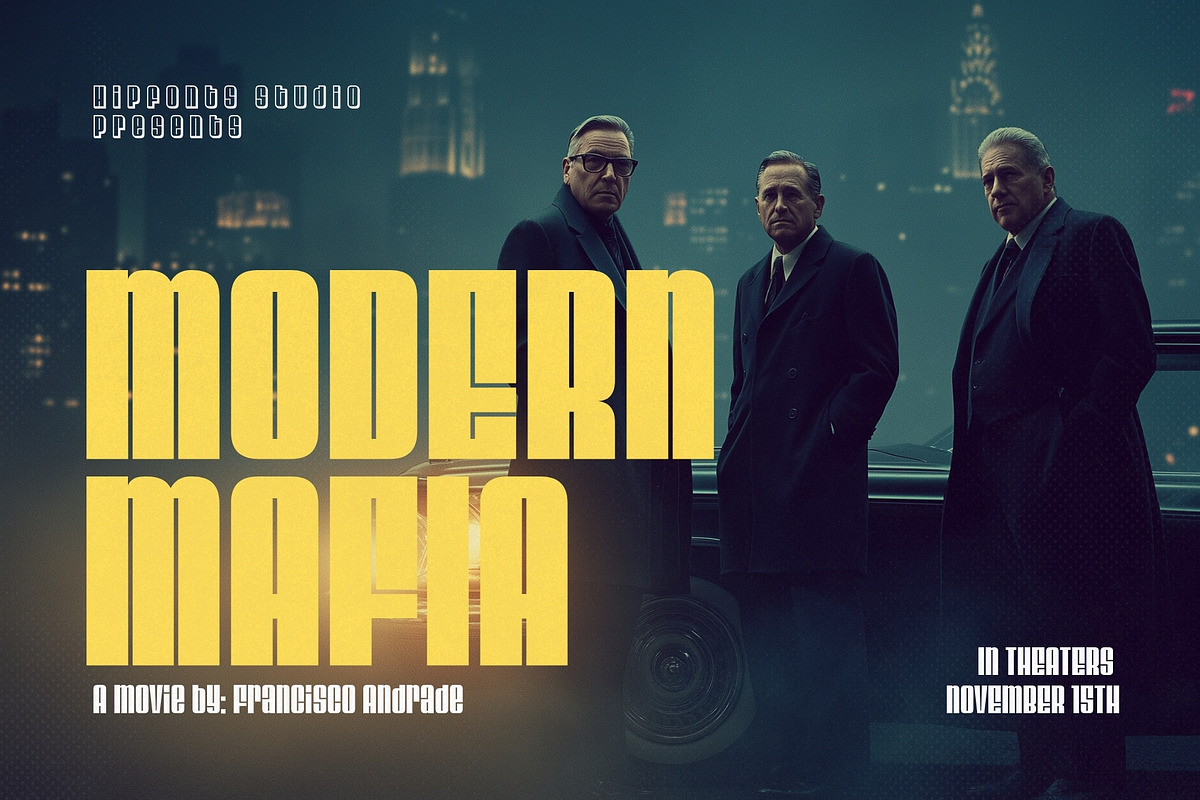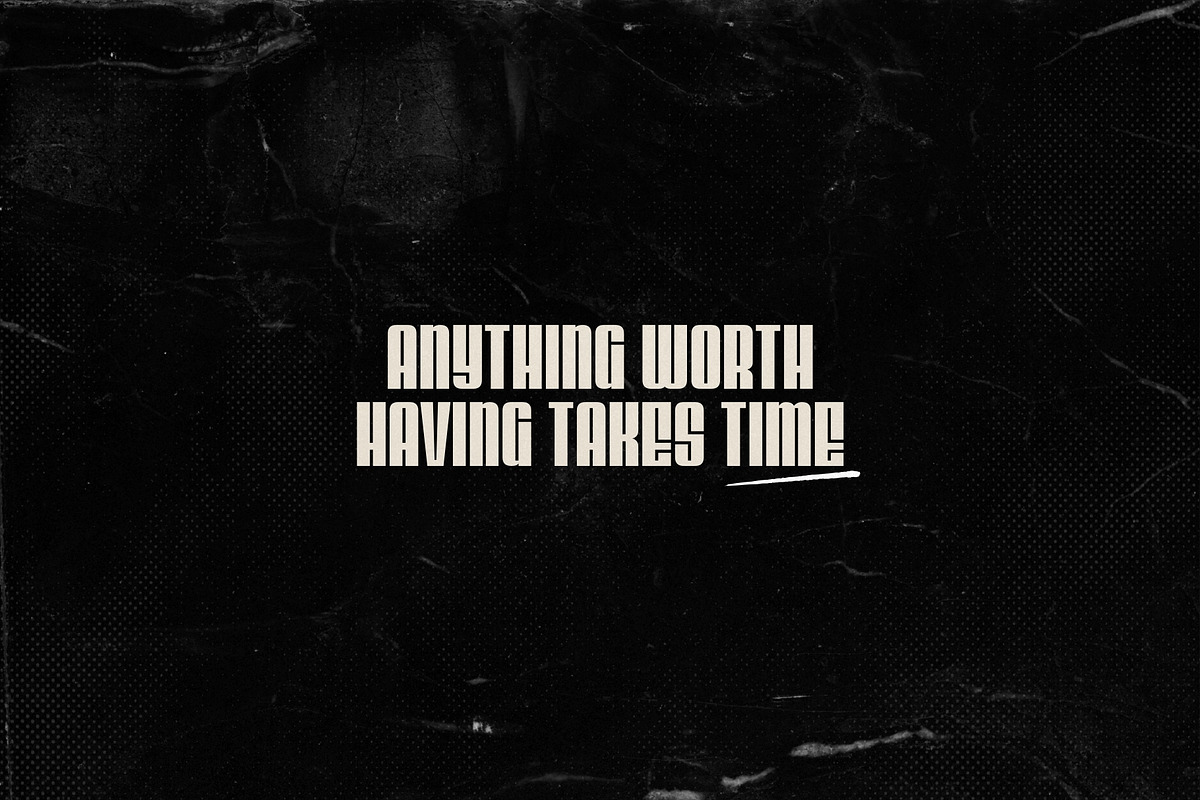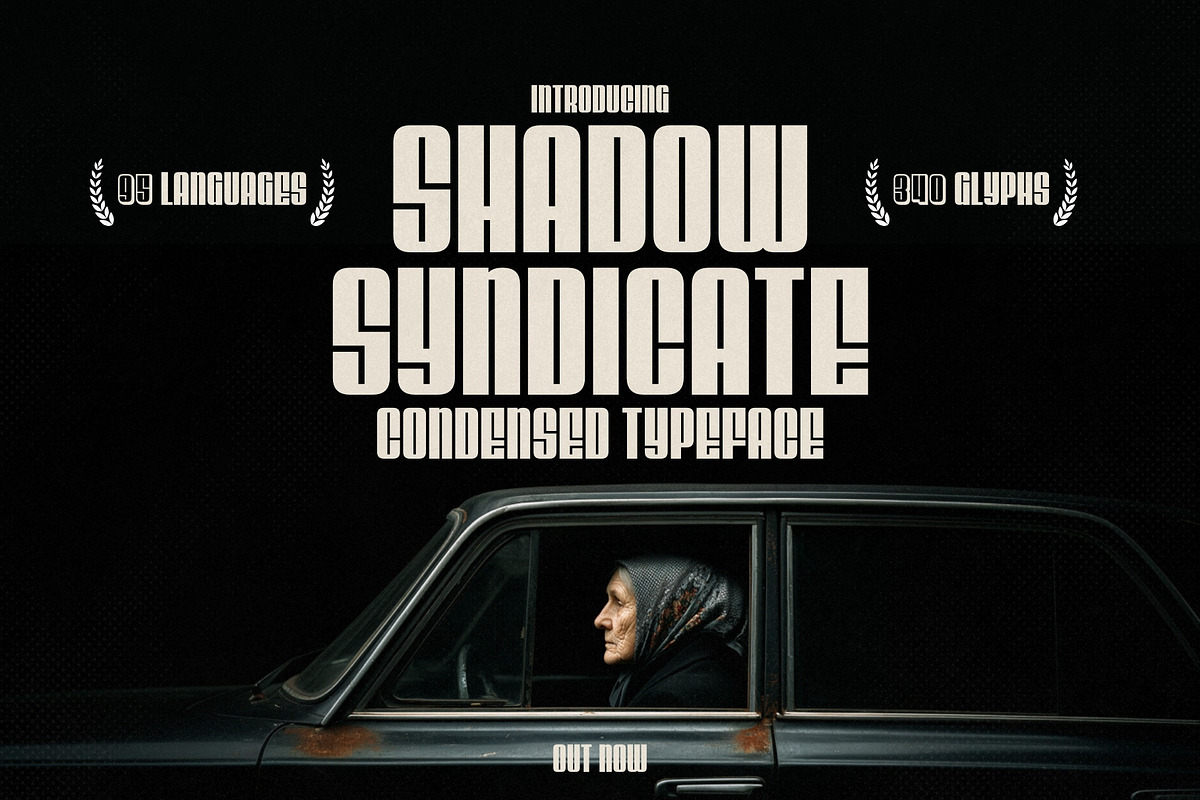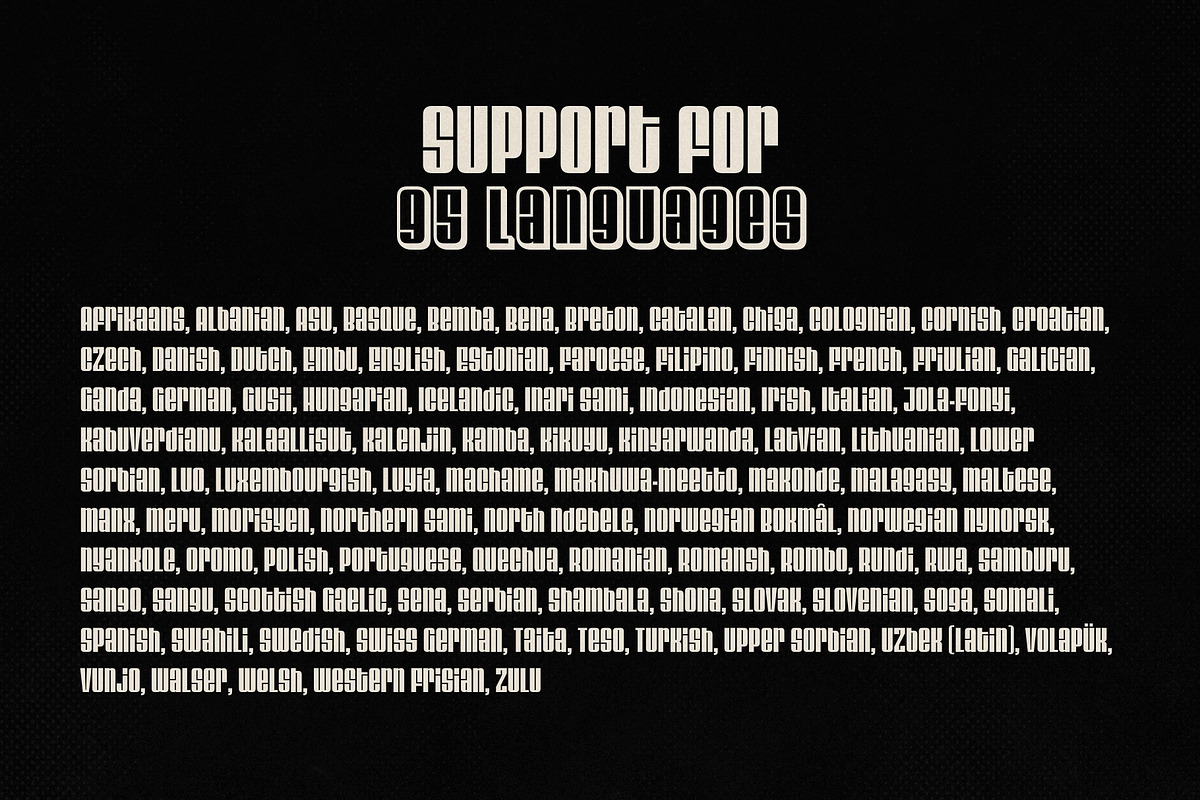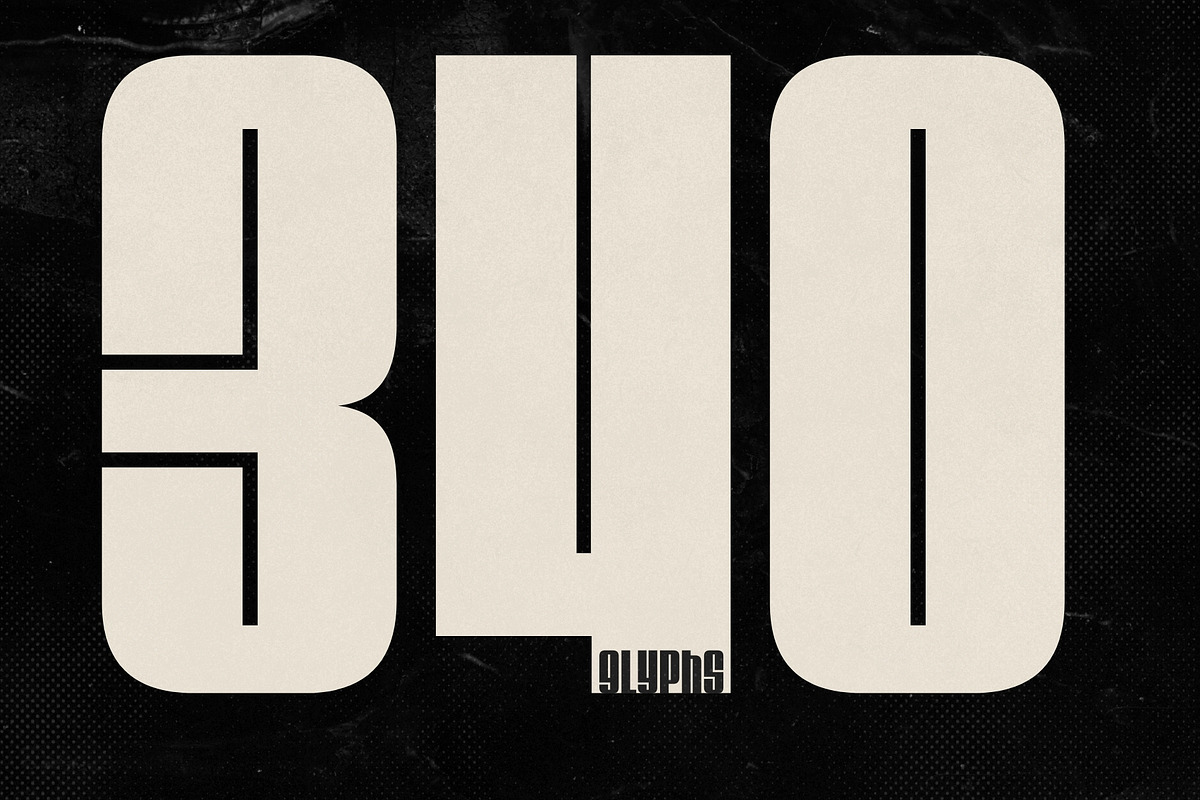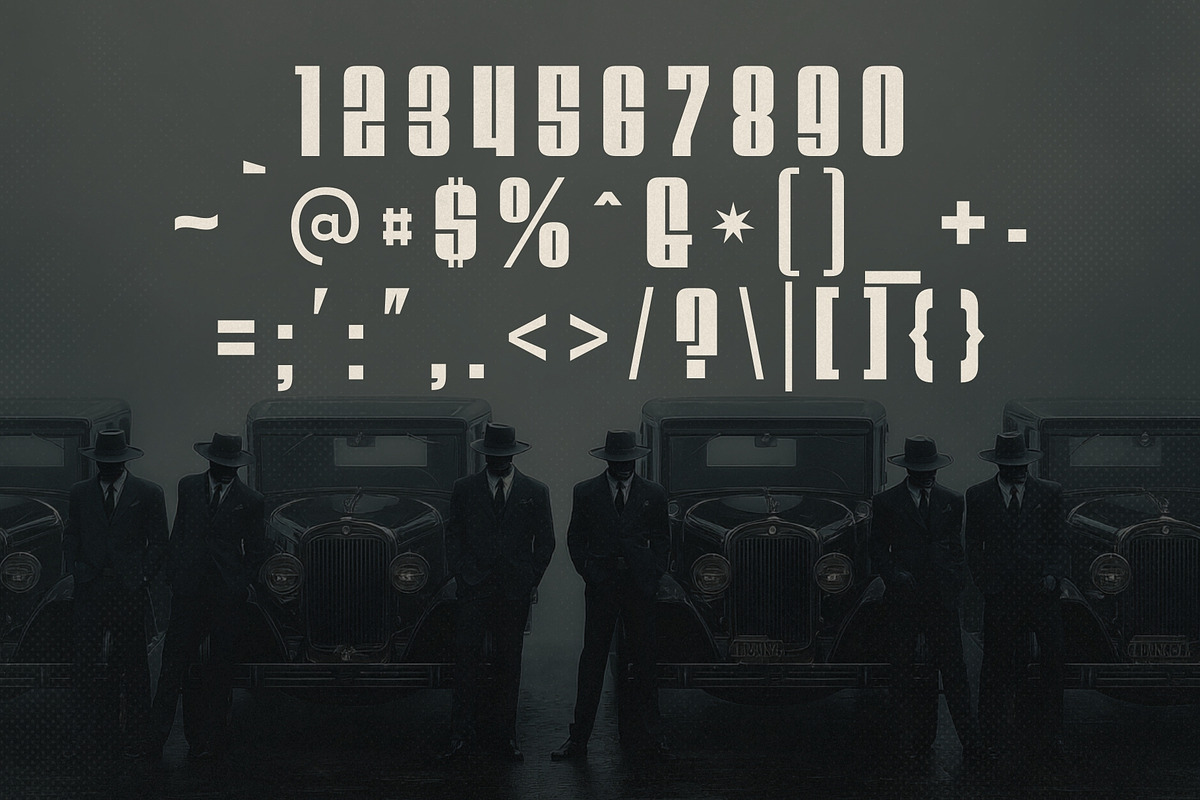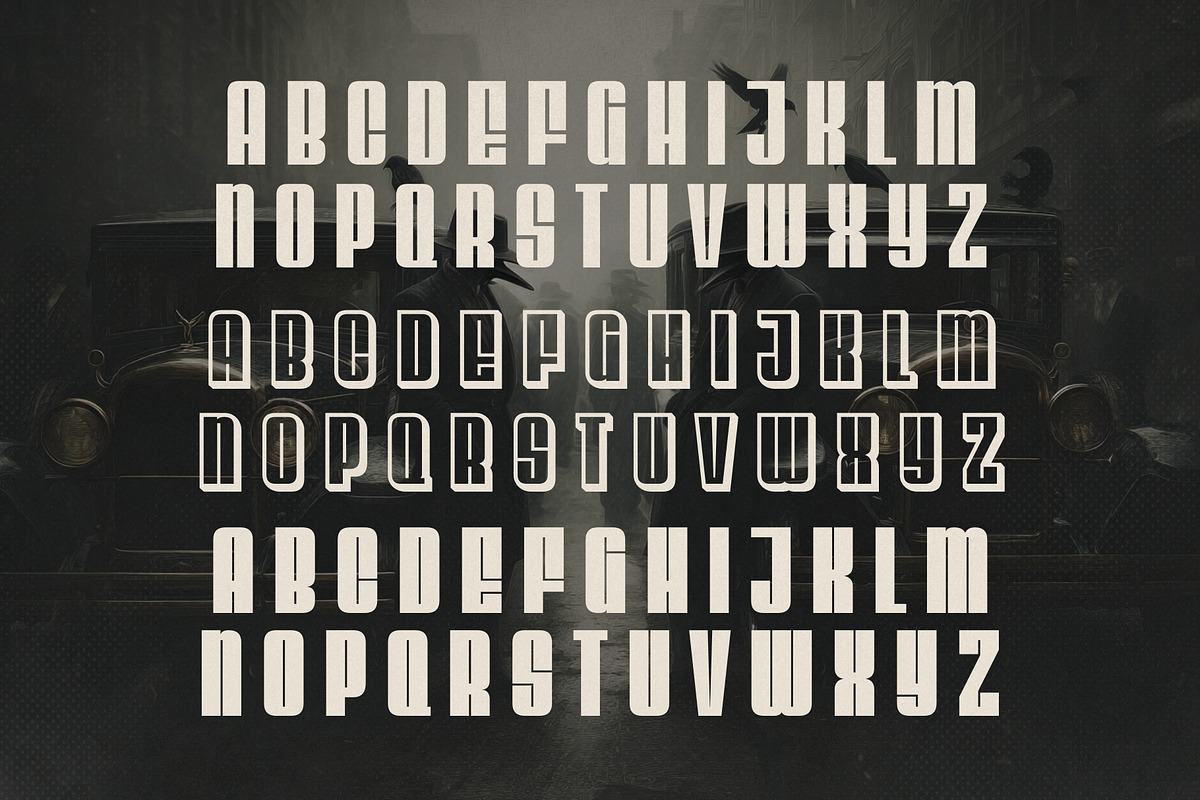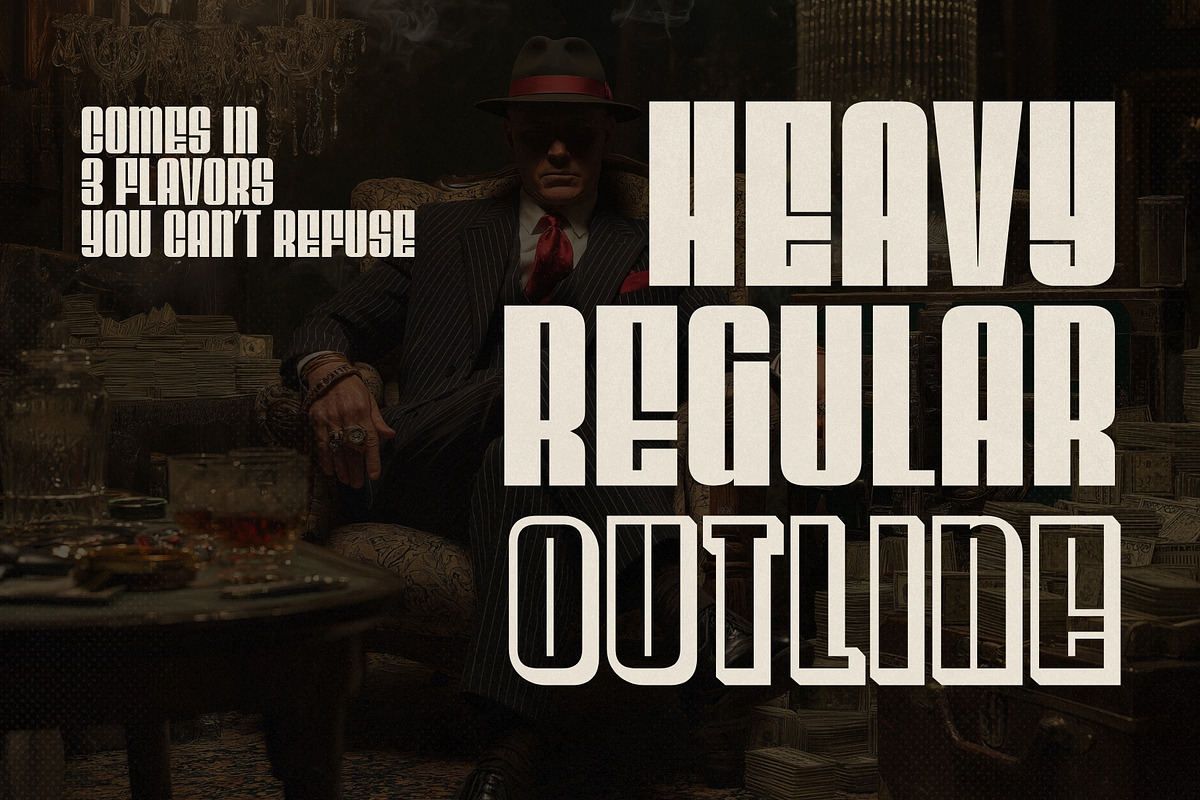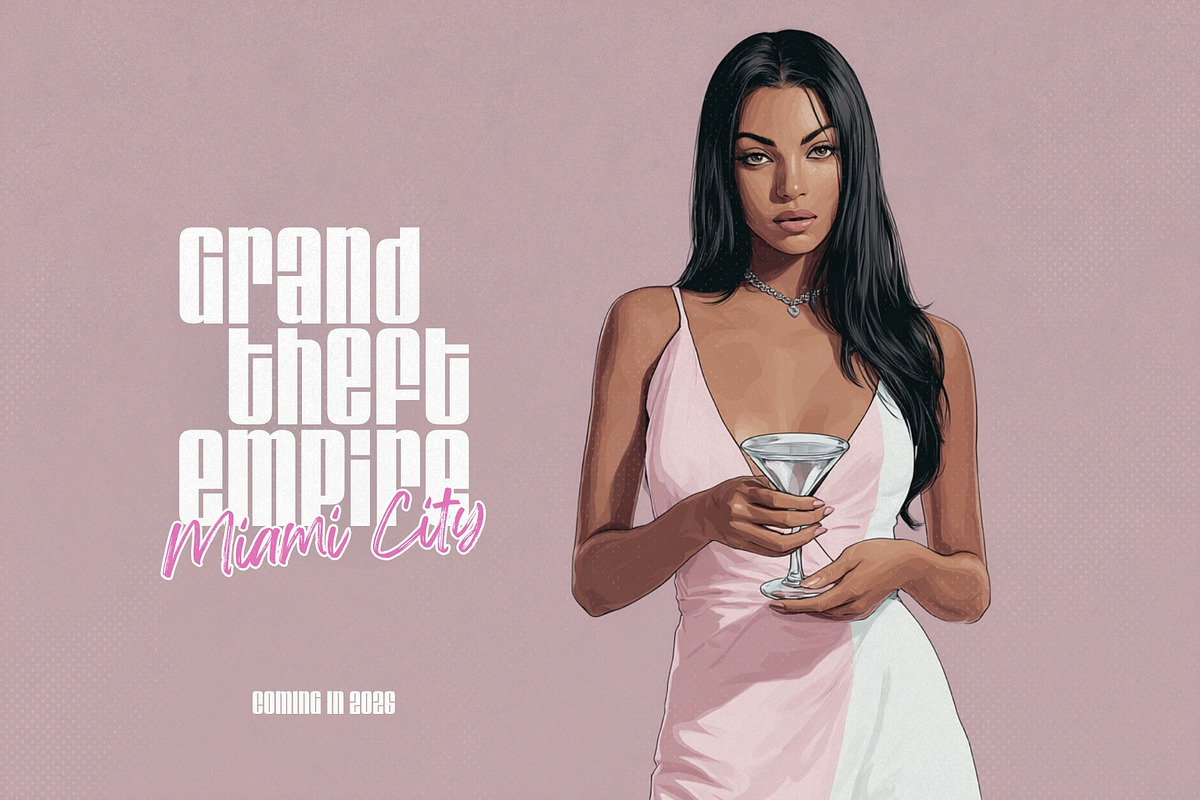
Shadow Syndicate Typeface
Step into the dark, stylish world of Shadow Syndicate, a sleek sans-serif condensed typeface designed for bold impact. Available in Regular, Heavy, and Outline styles, this mafia-inspired font exudes power, precision, and attitude. Perfect for a vast variety of creative projects, Shadow Syndicate effortlessly elevates your designs, from posters and logos to branding, editorial layouts, social media graphics, and more.
Its sharp, condensed forms create a commanding presence, making it ideal for projects that need a tough, cinematic, and professional aesthetic. Whether you’re designing for a modern streetwear brand, creating gangster-inspired artwork, or crafting striking digital content, Shadow Syndicate delivers unmatched versatility and style.
Bring authority and attitude to your work, let Shadow Syndicate be the font that sets your designs apart.
P.S. The grandma you see on the cover is the mastermind behind the entire syndicate.